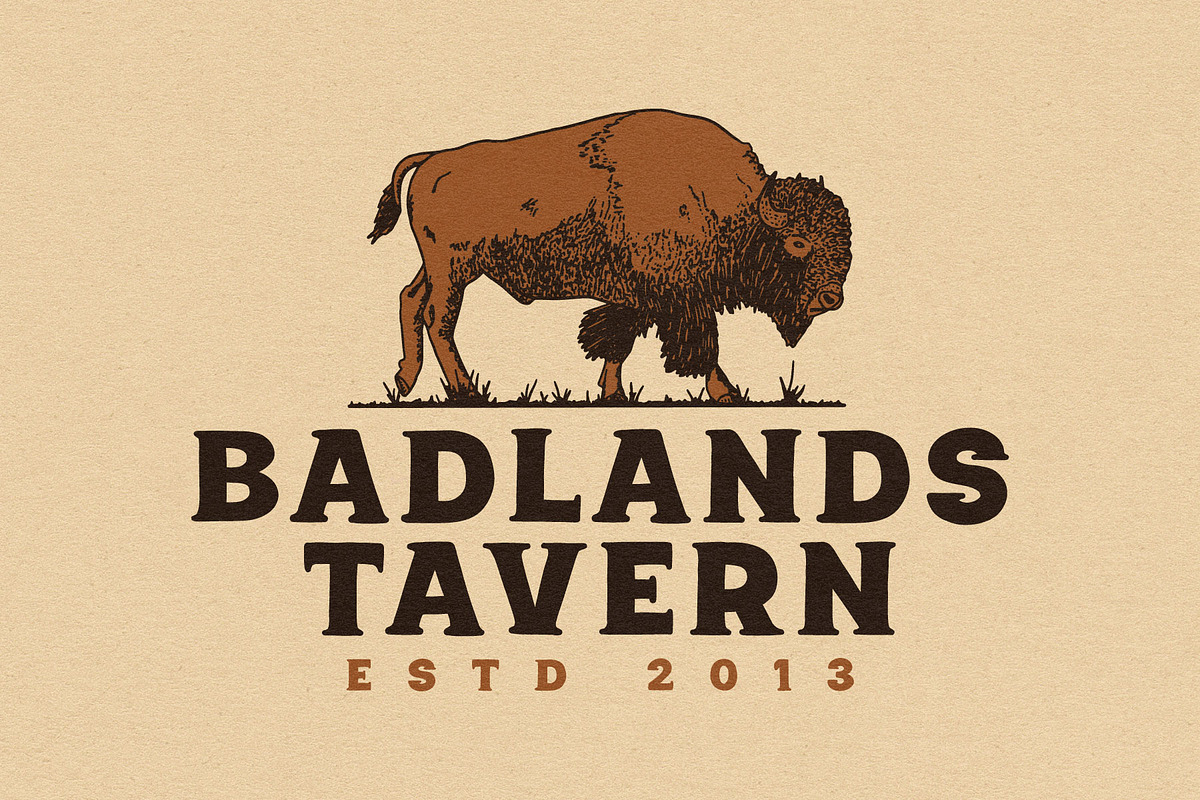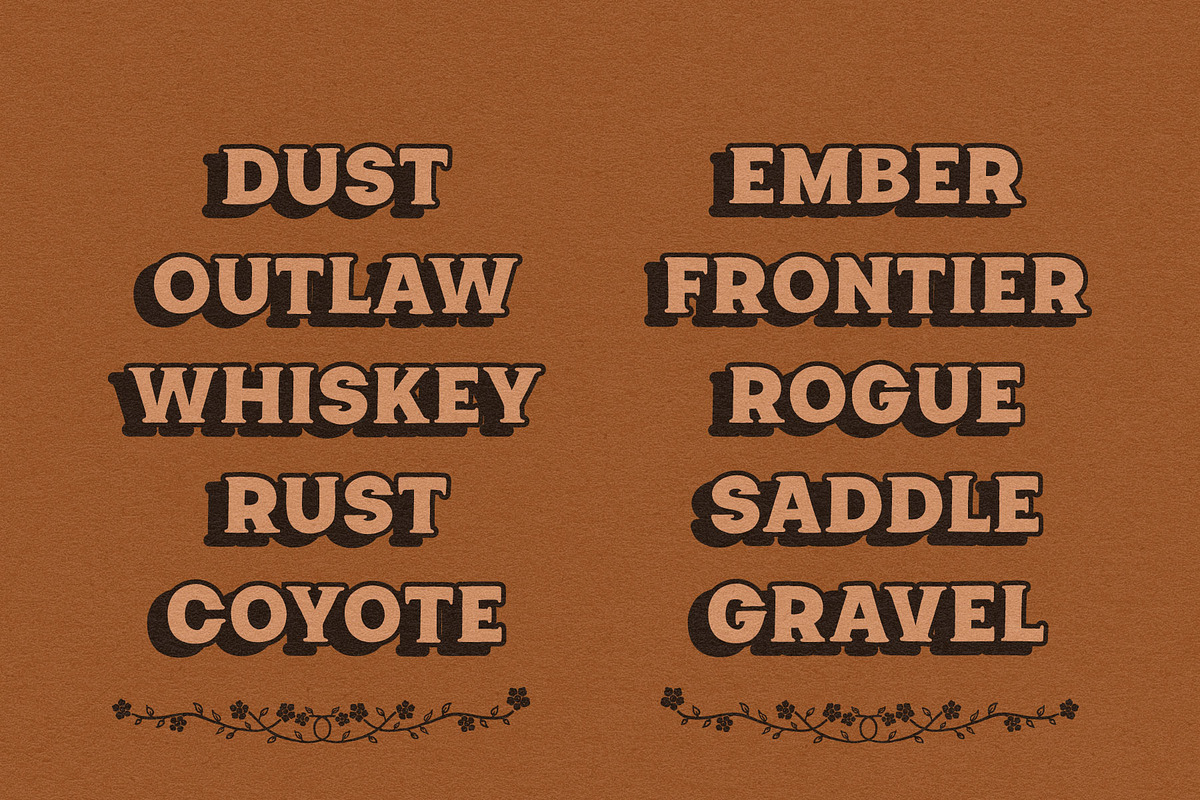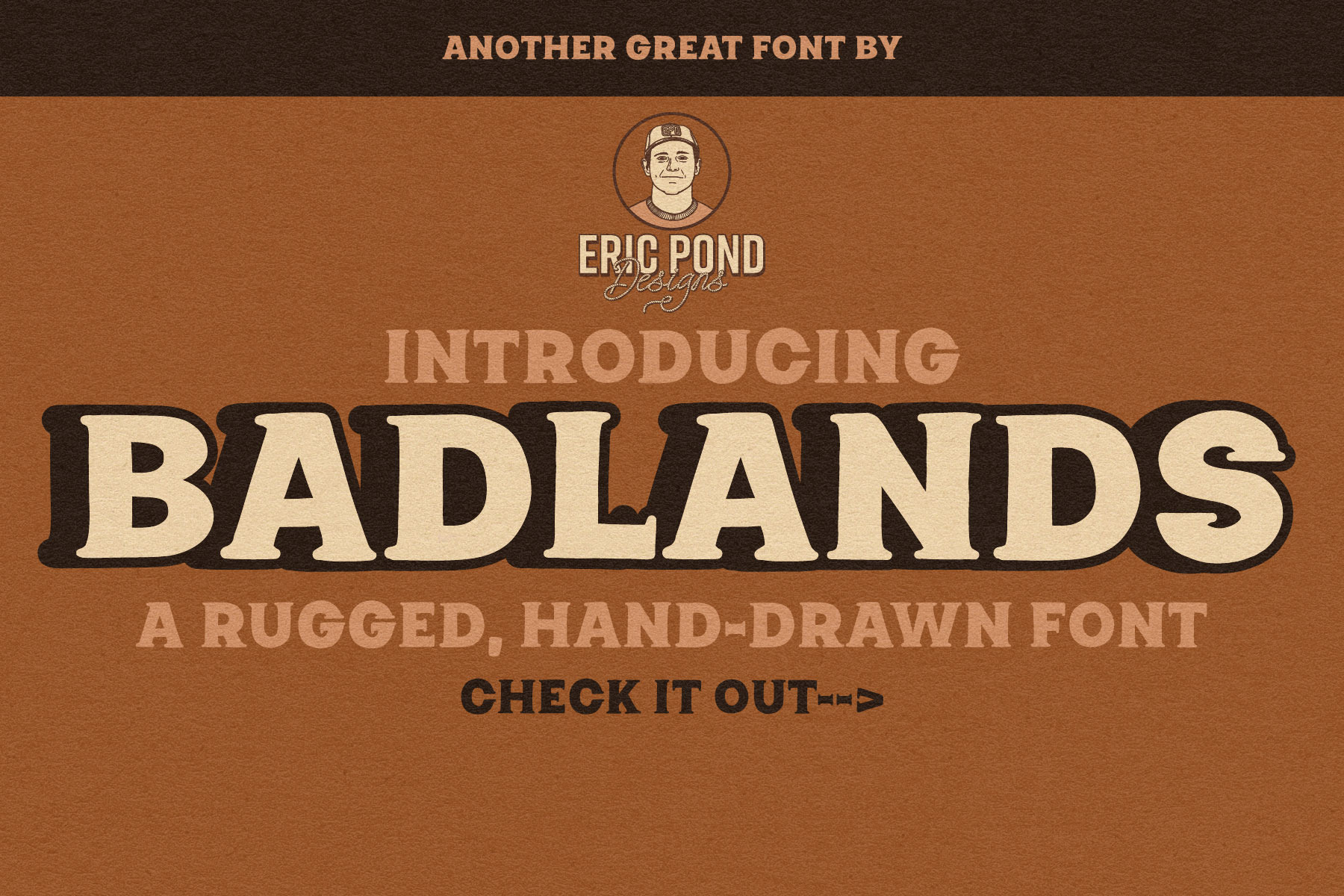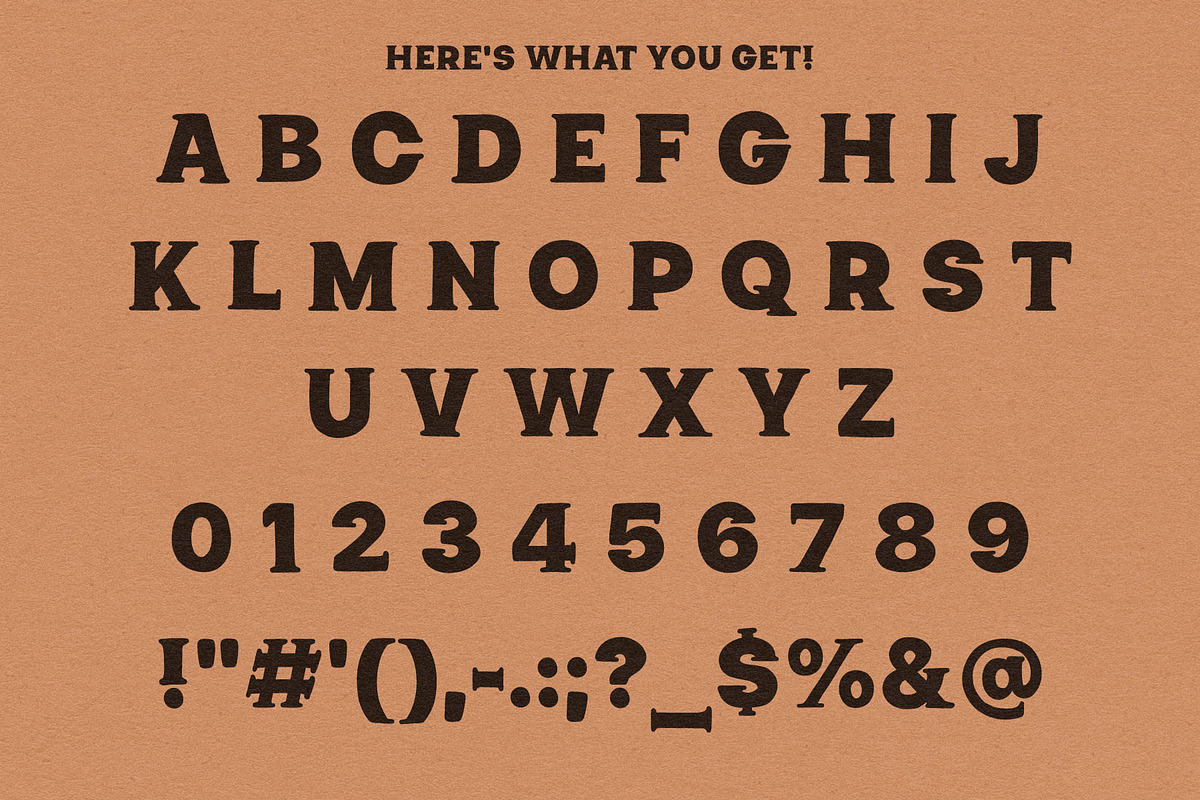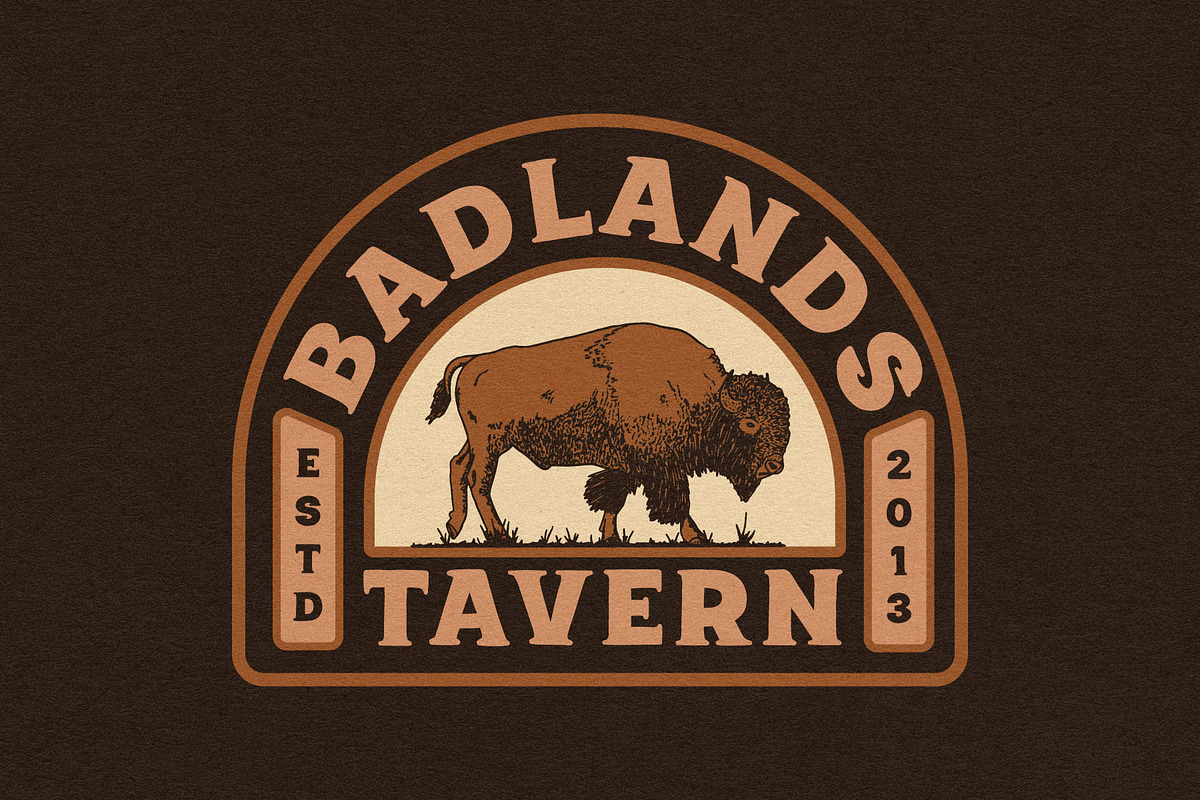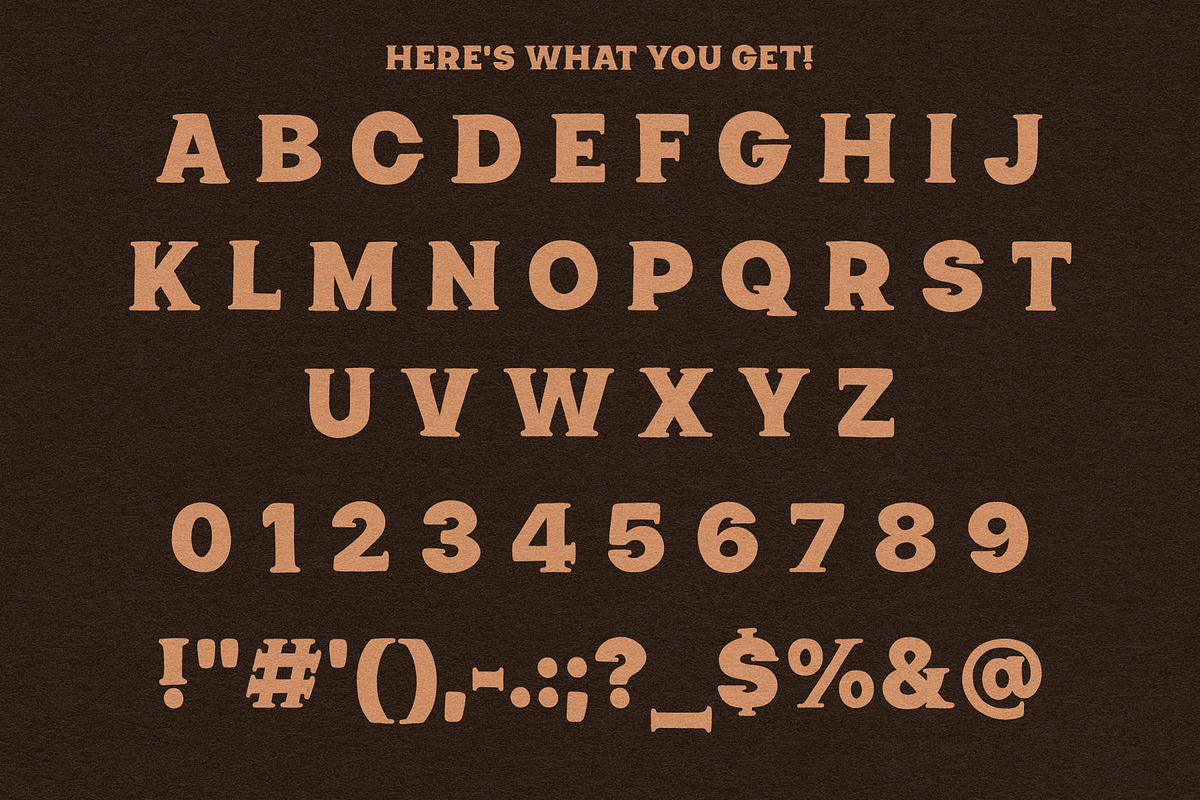
Badlands - A Rugged, Hand-drawn Font
Introducing Badlands, a rugged, hand-drawn font by Eric Pond Designs. This font features uppercase, numbers and some punctuation.